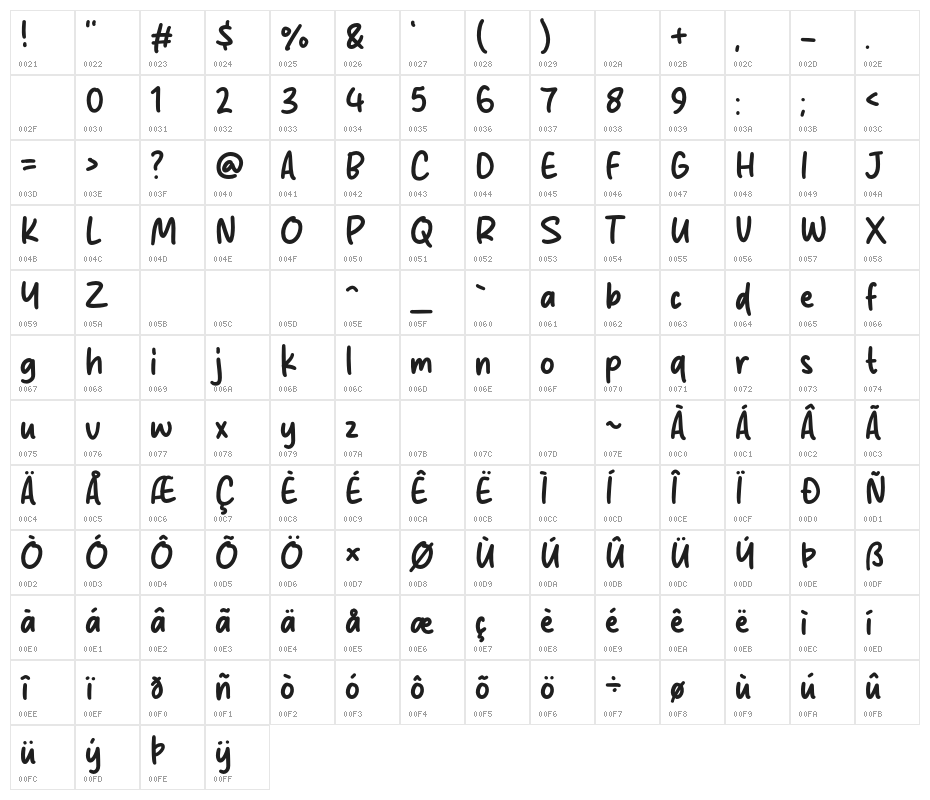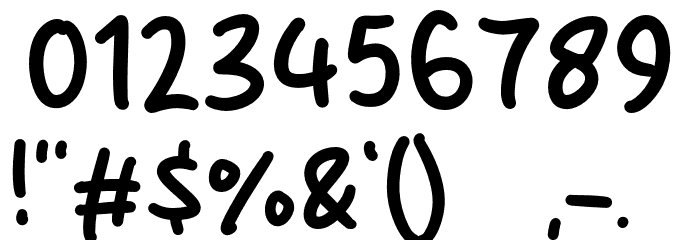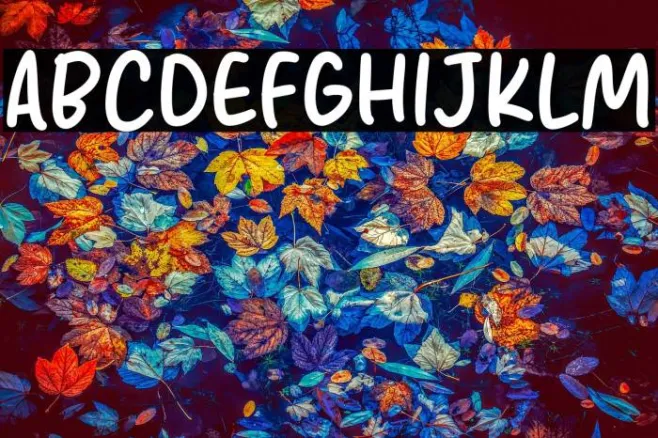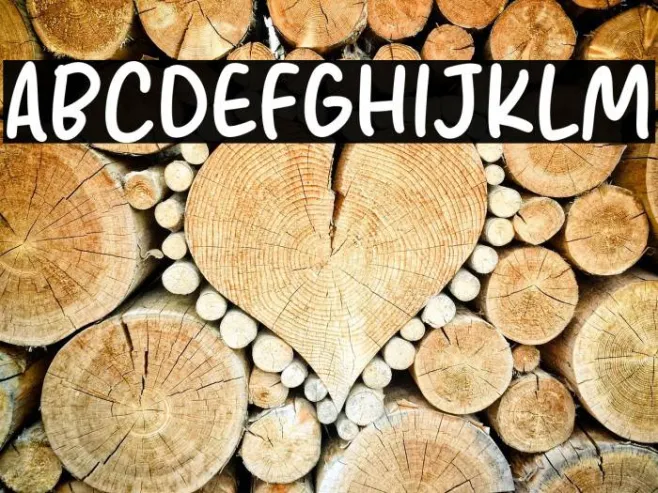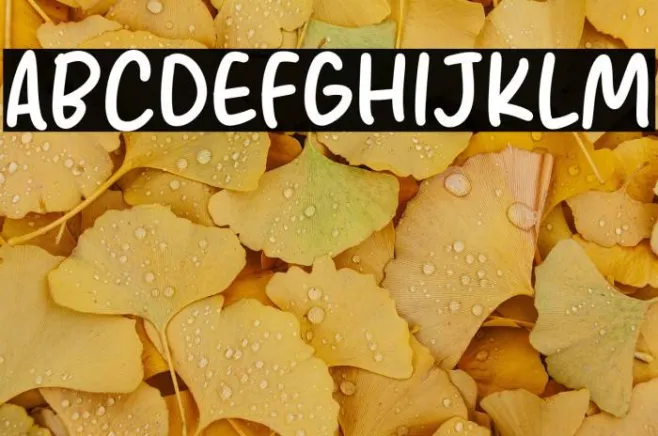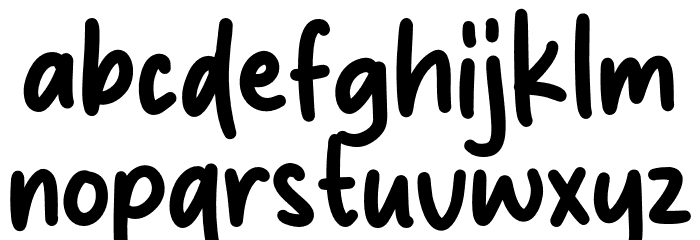
Amanda Rose Font
Amanda Rose Description
This playful and casual font features a handwritten style with smooth, rounded edges and a friendly appearance. The characters are slightly irregular, giving it an authentic, hand-drawn feel. The uppercase and lowercase letters maintain a consistent flow, while the numerals and special characters complement the overall style. The font exudes a sense of warmth and approachability, making it ideal for projects that require a personal touch. Its legibility and charm make it suitable for a variety of creative applications.
| Overall Style | Casual, Playful |
| Use Case | Headlines, Informal text, Creative projects |
| Proposed Projects | Greeting cards, children's books, personal blogs, casual branding, and social media graphics. |